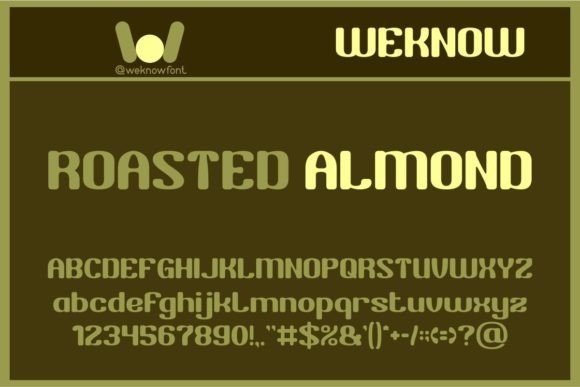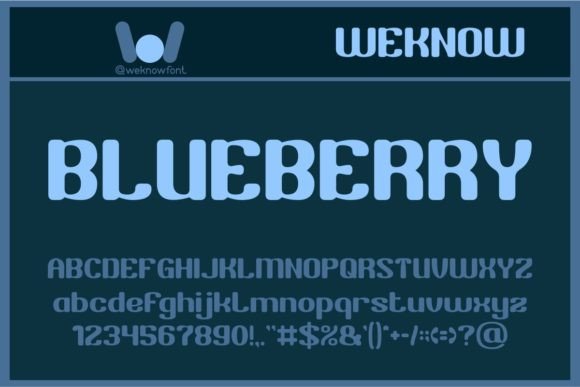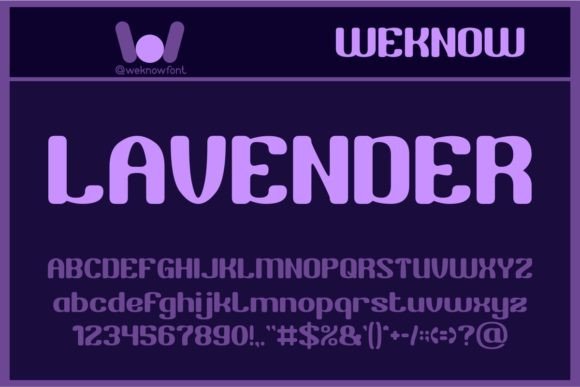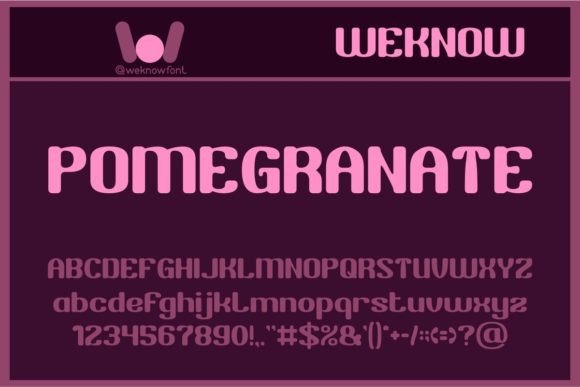
Chocolate Bites Font – Free Download
Introduction to Chocolate Bites Font
Chocolate Bites is a fancy display font suitable for a logo, logotype, headline, corporate identity, brand identity, apparel industry, poster, music, movie, game, magazine, book, comic, cartoon, YouTube, Instagram, website, or any of your creative design projects.
Chocolate Bites is a fancy display font suitable for a logo, logotype, headline, corporate identity, brand identity, apparel industry, poster, music, movie, game, magazine, book, comic, cartoon, YouTu
Key Features of Chocolate Bites Font
Why Choose Chocolate Bites Font?
Chocolate Bites Font offers exceptional quality and versatility, making it a valuable addition to your design toolkit. Whether you’re creating for personal projects or commercial use, Chocolate Bites Font delivers professional results.